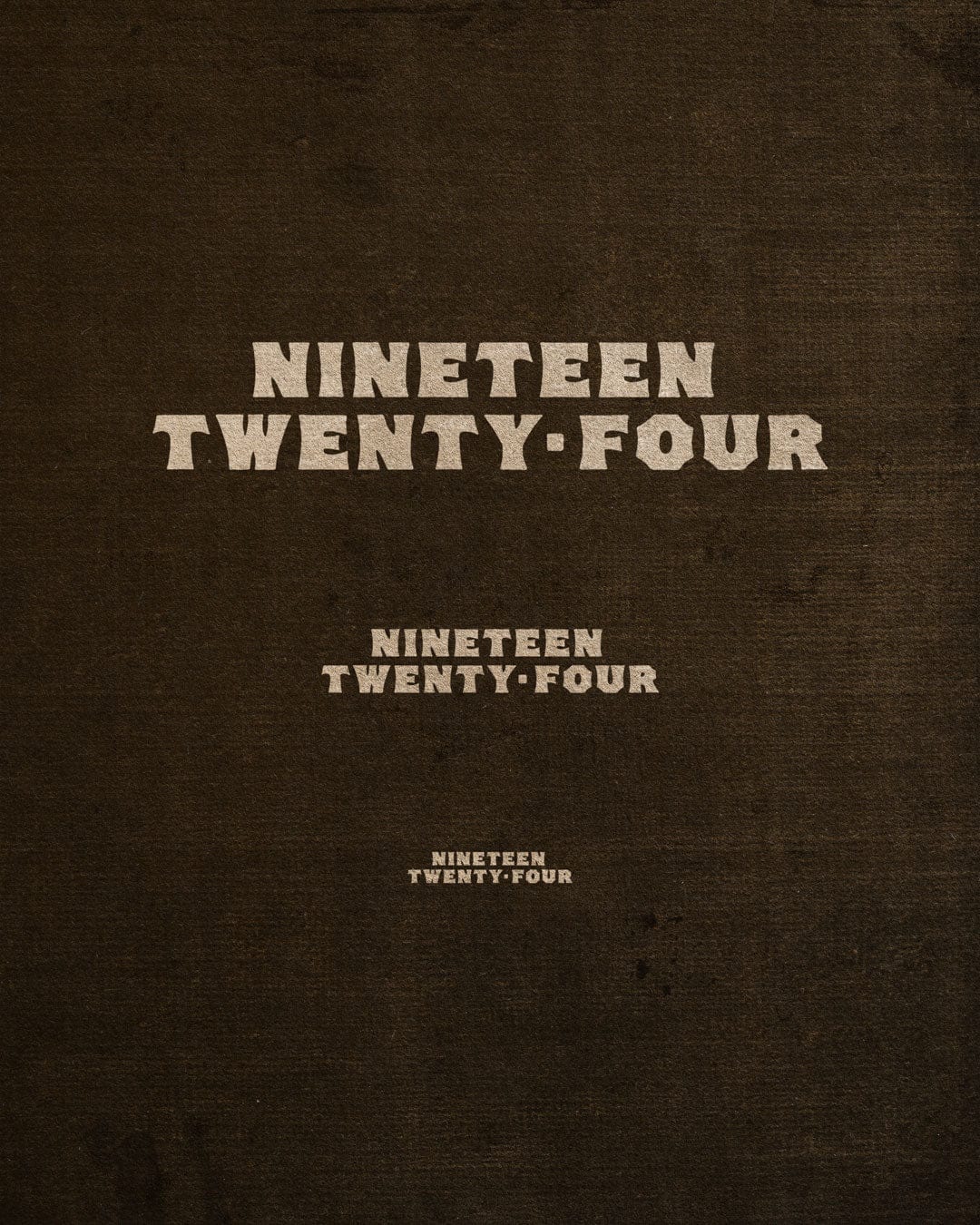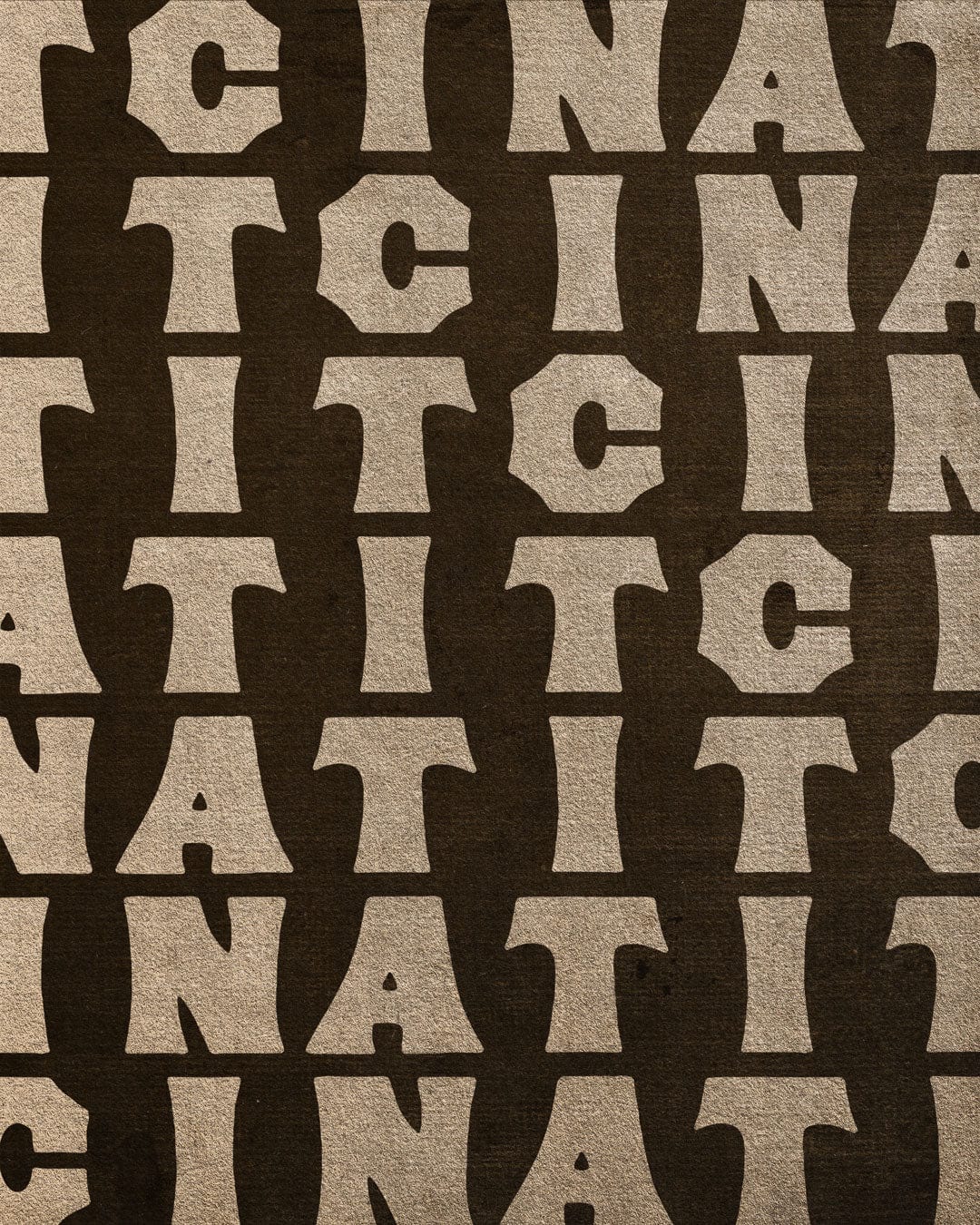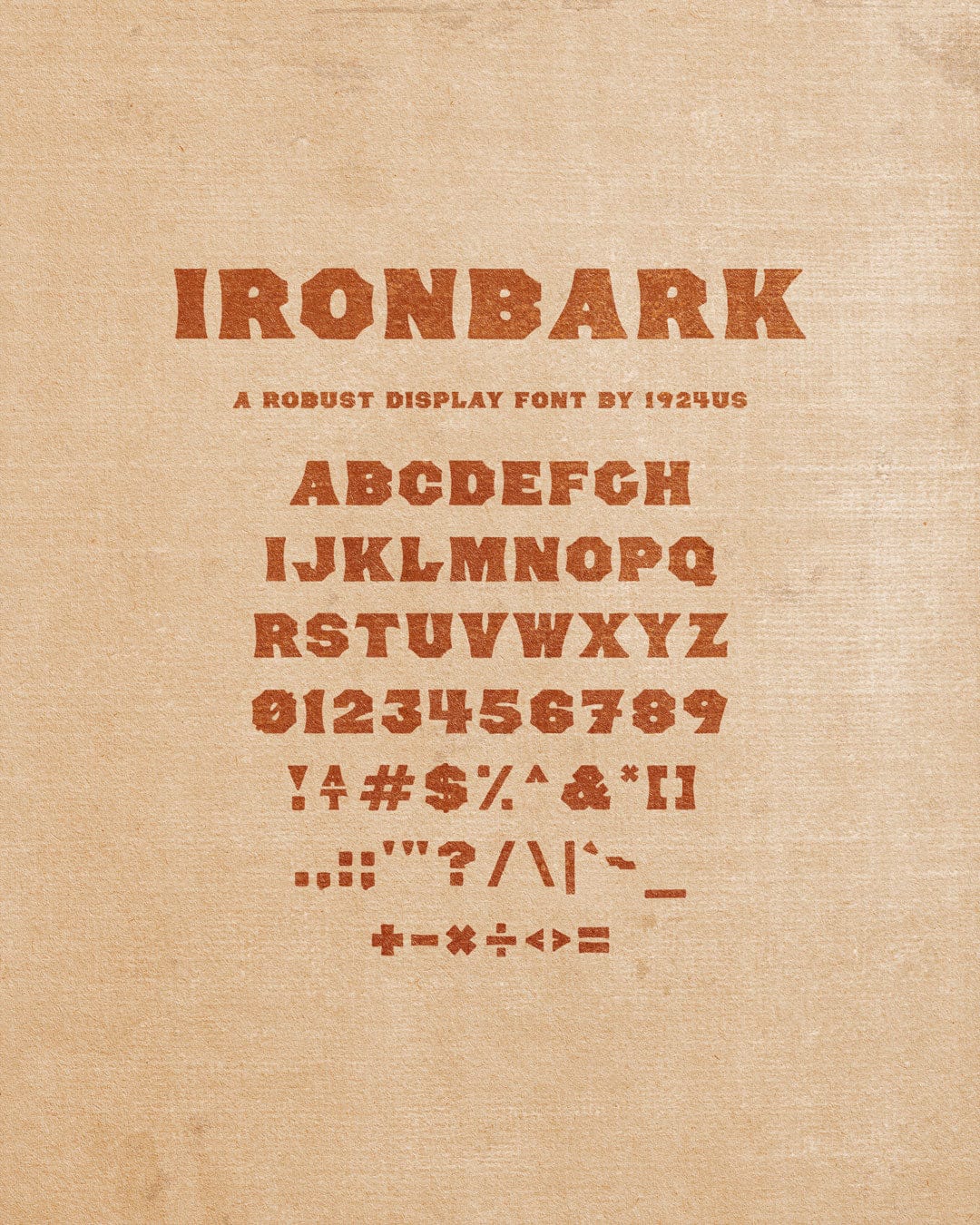
Ironbark Font by 1924us
Proudly introducing Ironbark! A robust new display font by the 1924us studio.
For ages it’s been a goal of ours to design a font that pulls from the old Tuscan typesets without feeling limited to tacky ‘Carnival’ posters. Ironbark references several antique wood cut specimens, pushing proportions and simplifying edges to create a bold, distinct, high-impact font with an array of uses.